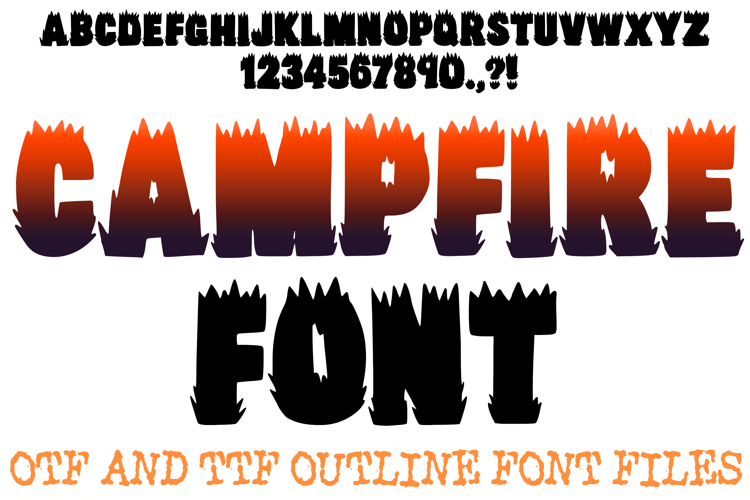
Ignite your next creative project with the bold, rugged, and energetic look of the Campfire Font. This heavy display typeface features solid, blocky silhouettes crowned with jagged, flickering spikes that perfectly mimic roaring flames, blazing embers, and crackling forest fires. Its powerful, high-contrast geometry brings an instant outdoor adventure feel and a striking rustic texture to any headline.
Delivered as an installable typeface, this solid-fill graphic structure offers impactful visibility. It is an exceptional resource for a designer who wants to overlay bright flame gradients, apply distressed grunge textures, or set a dramatic contrasting background. The sharp, jagged linework scales flawlessly across all creative software, making it ideal for impactful digital media and bold print layouts.
Ideal For Creative Merch & DIY
Custom Merchandise: Create standout, rugged typography for outdoor-themed t-shirts, camping hoodies, and scout troop apparel.
Die-Cut Stickers: Design bold, fiery vinyl decals for coolers, hydroflasks, travel trailers, and laptop covers.
Theme Stationery: Perfect for summer camp welcome flyers, backyard barbecue invitations, horror comic layouts, or spooky Halloween party signage.
Adventure Branding: Elevate logos, business cards, and social media packaging for outdoor gear shops, survival blogs, or local food trucks.